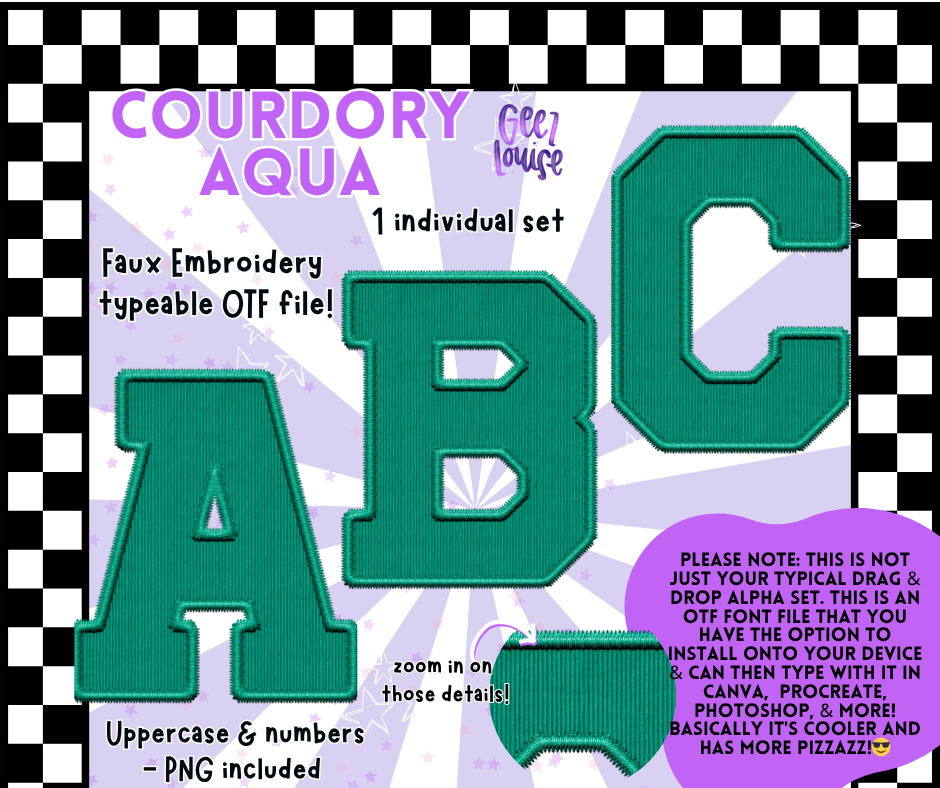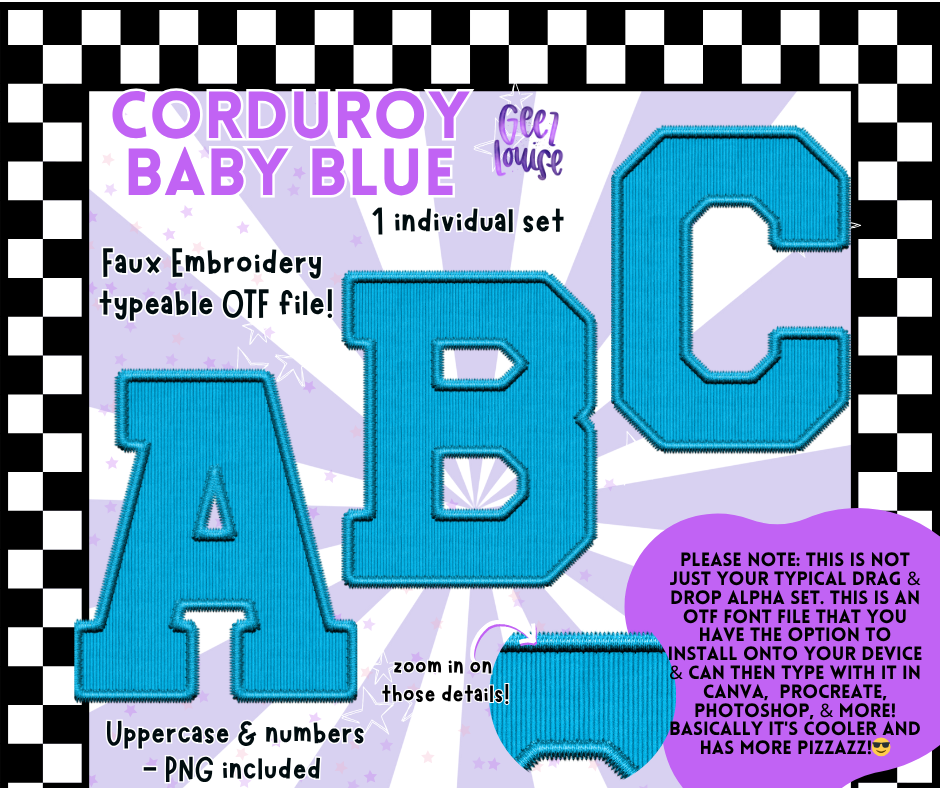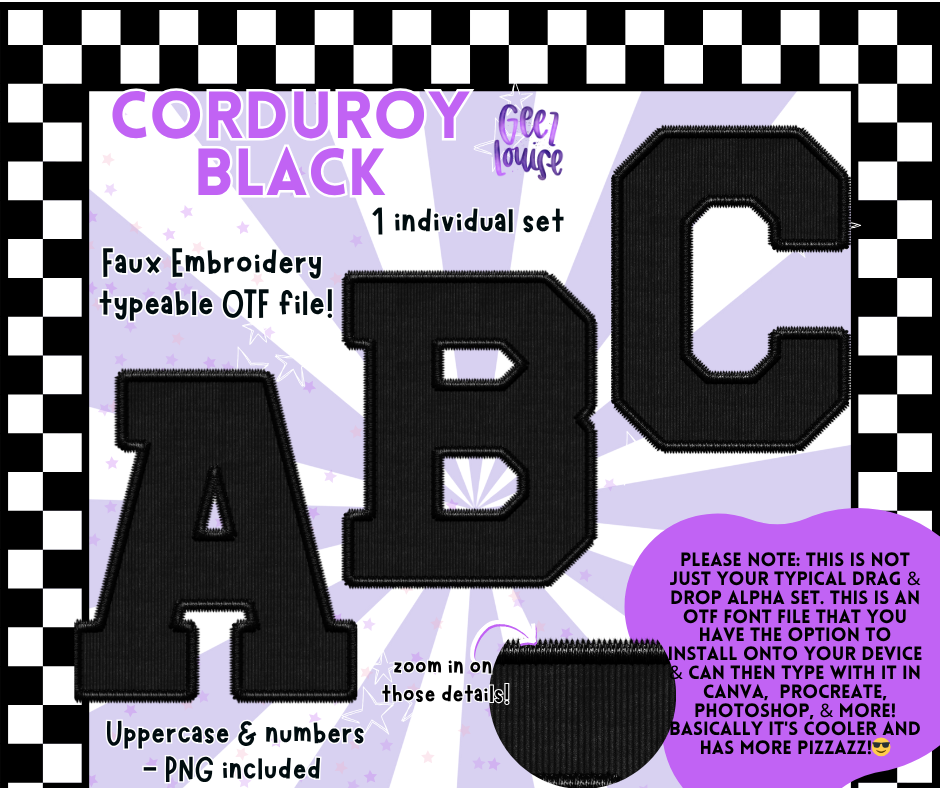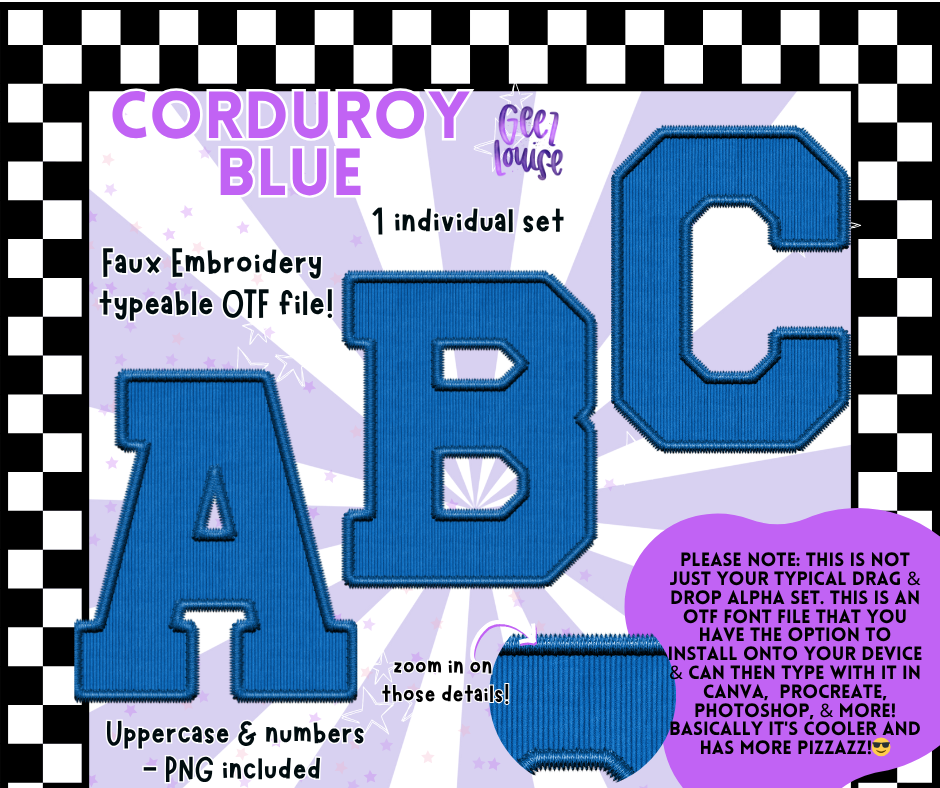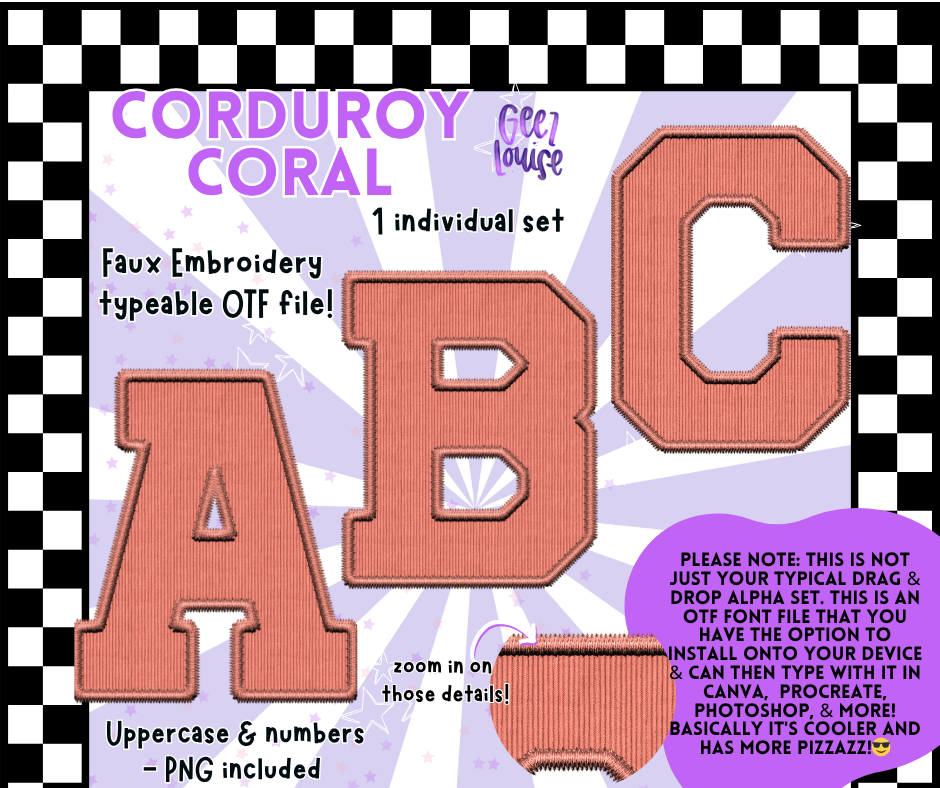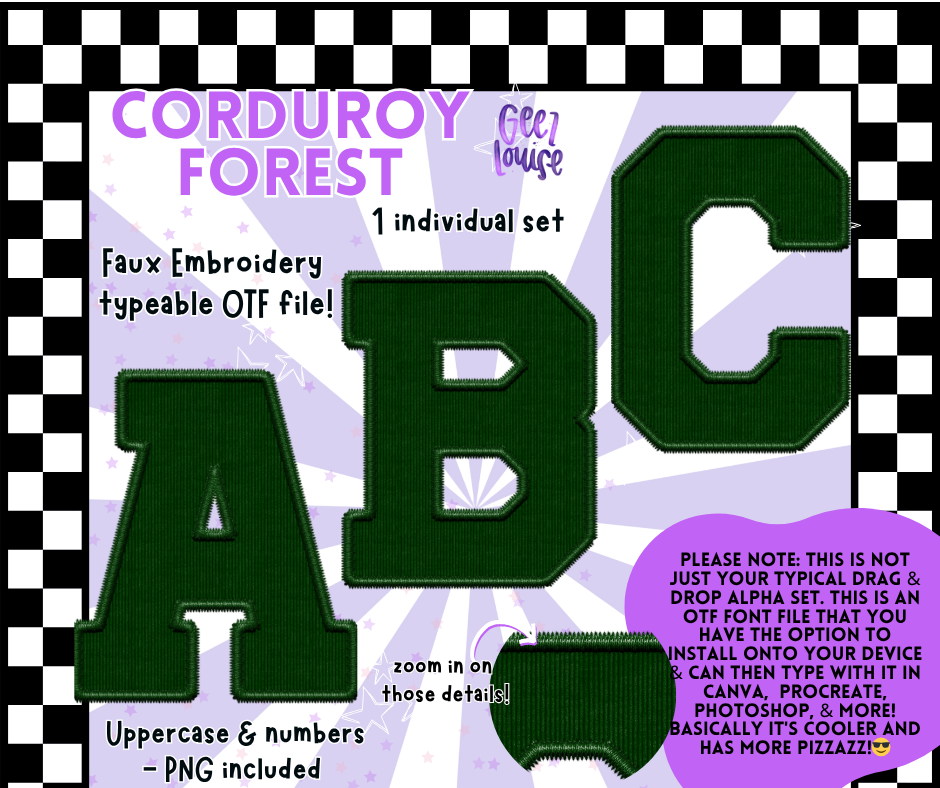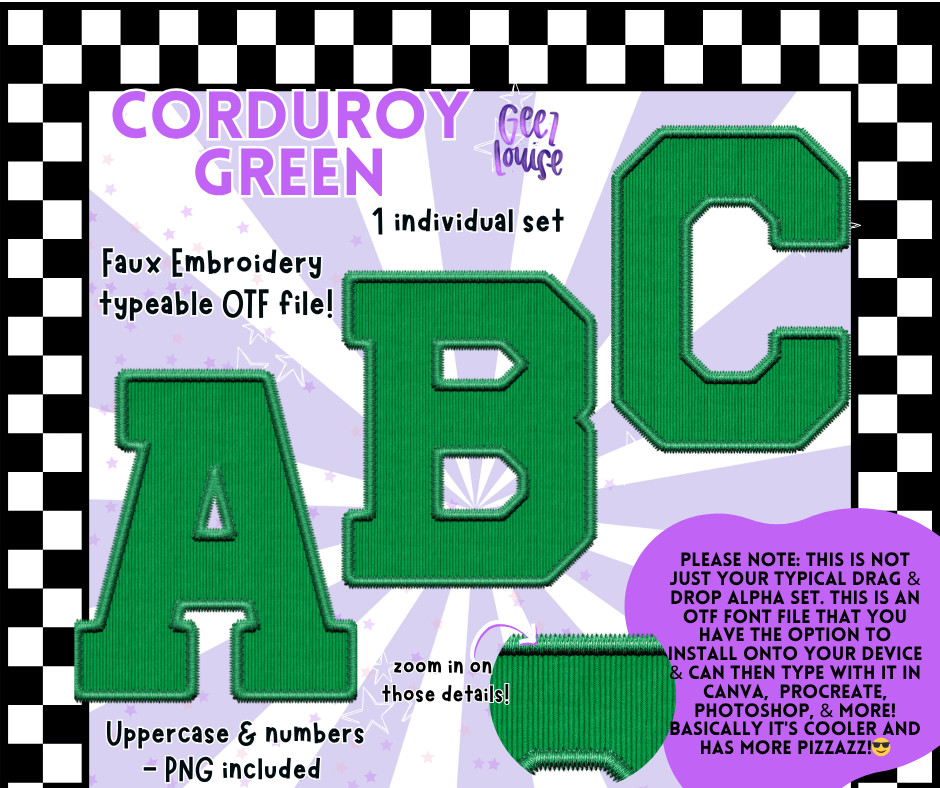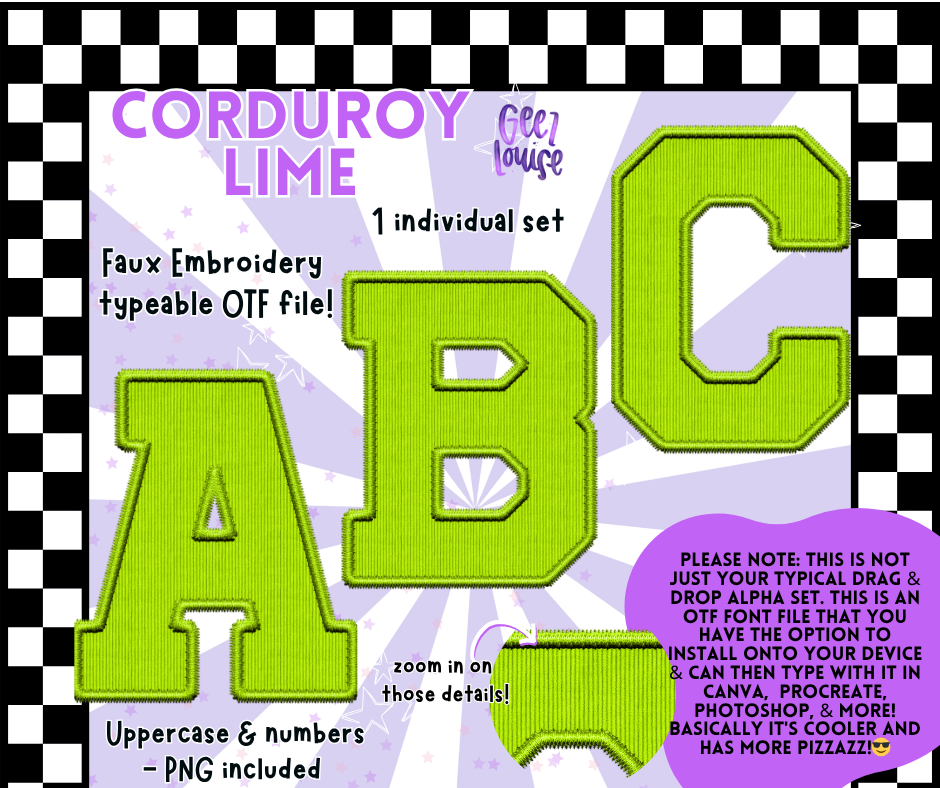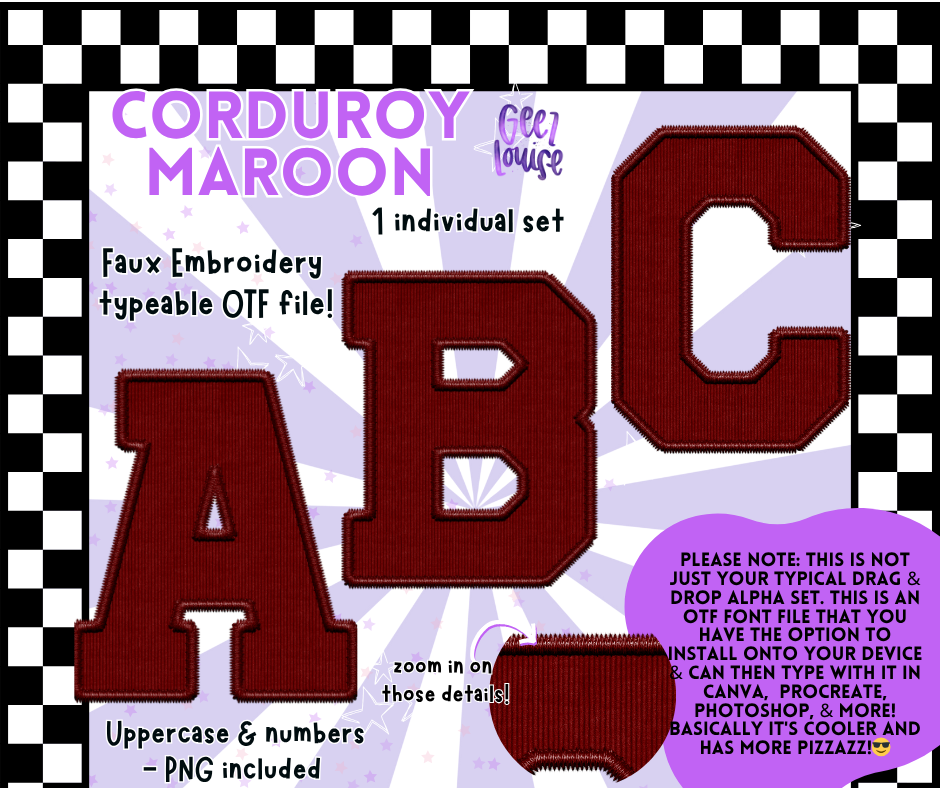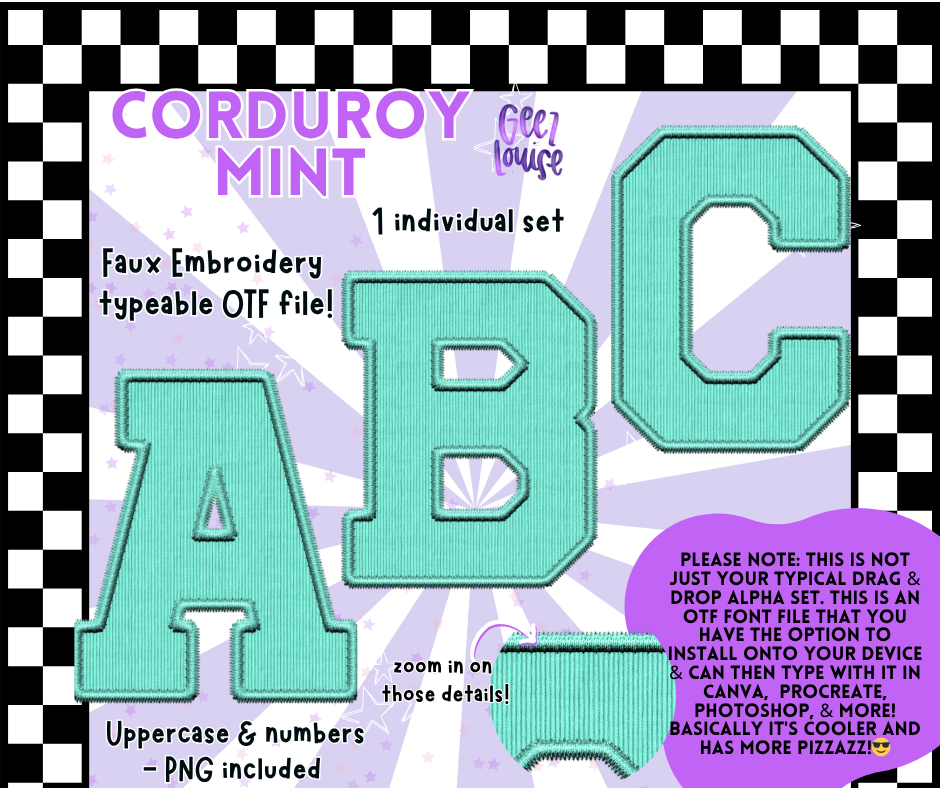
Corduroy Faux Embroidery Alpha – 21 Colors | OTF Font + PNG
Bring that cozy, collegiate feel to your designs with the Corduroy Faux Embroidery Alpha Set—now available in 21 rich color options! This varsity-style font mimics the classic texture of corduroy with a faux-stitched finish.
🔥 21 bold color options
🔤 Uppercase + numbers included
🎓 Faux embroidered corduroy style